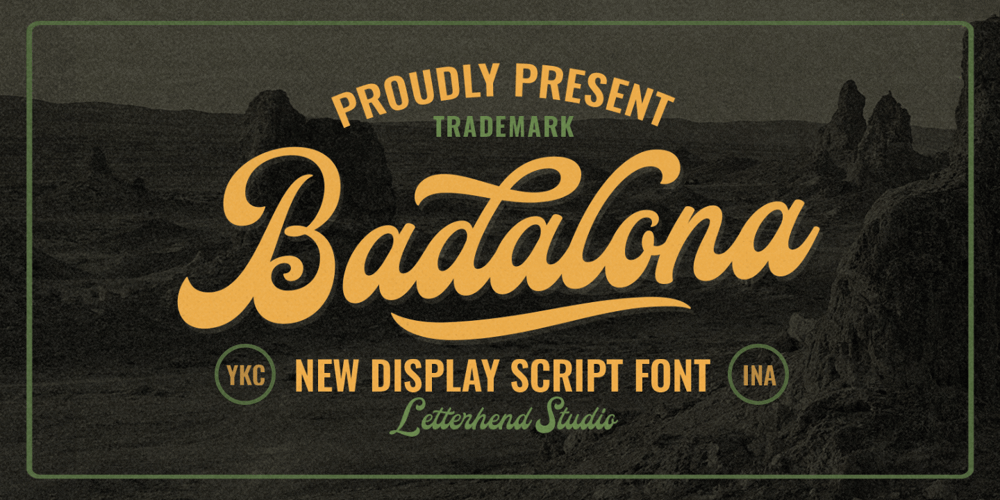
Badalona Font Family was designed by Hendry Juanda and published by Letterhend. Badalona contains 1 styles and family package options. Introducing, Badalona – a standout display script with a touch of classic looks. This type of font perfectly made to be applied especially in logo, headline, signage and the other various formal forms such as invitations, labels, logos, magazines, books, greeting / wedding cards, packaging, fashion, make up, stationery, novels, labels or any type of advertising purpose.Features : Uppercase & lowercase Numbers and punctuation Alternates & Ligatures Multilingual PUA encoded